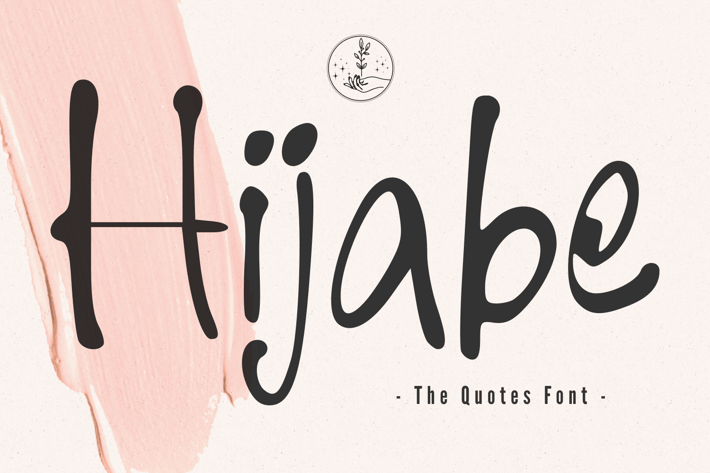
Hijabe - The Quotes Font
Hijabe - The Quotes Font, it’s perfect for logos, name card, magazine layouts, invitations, headers, or even large-scale artwork.